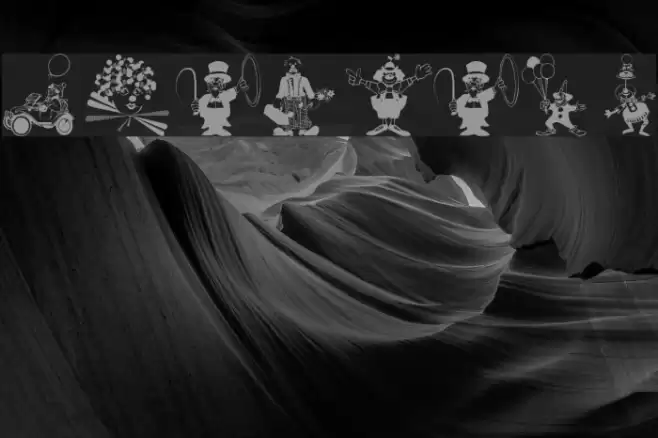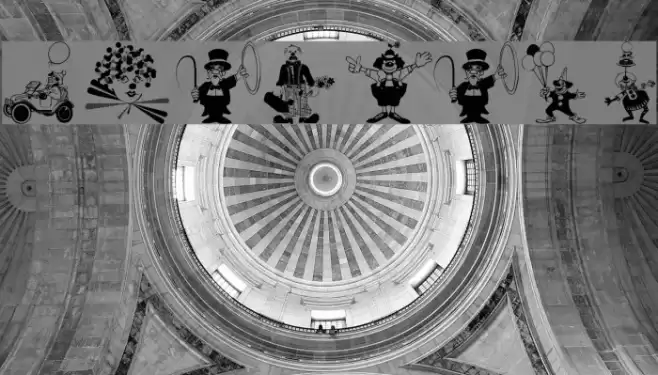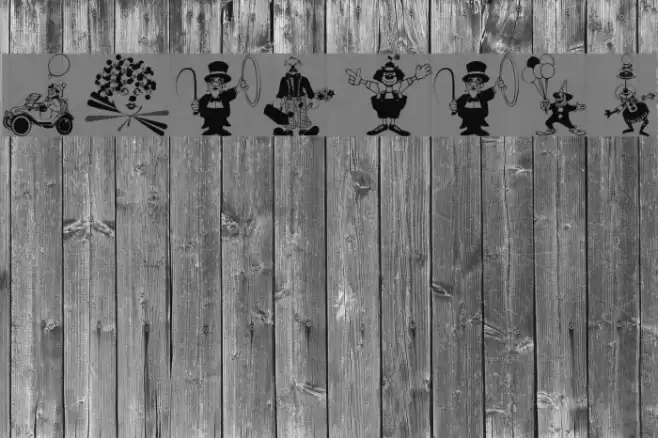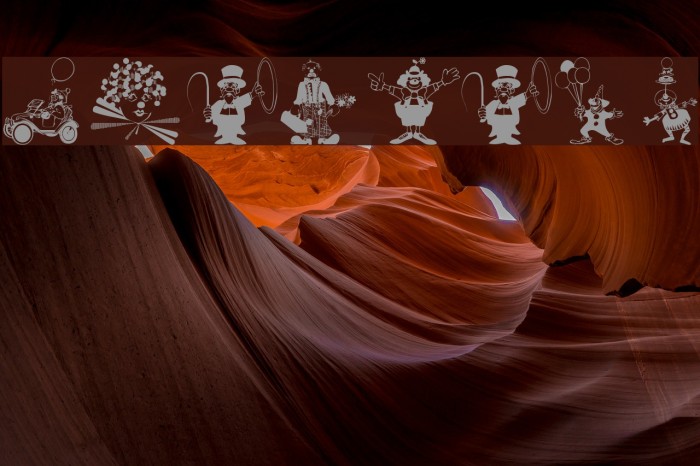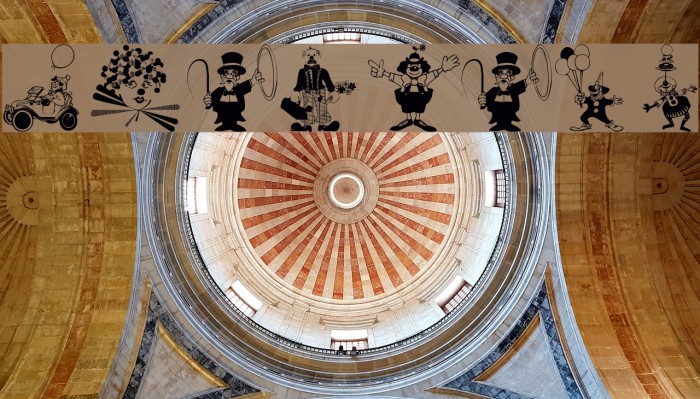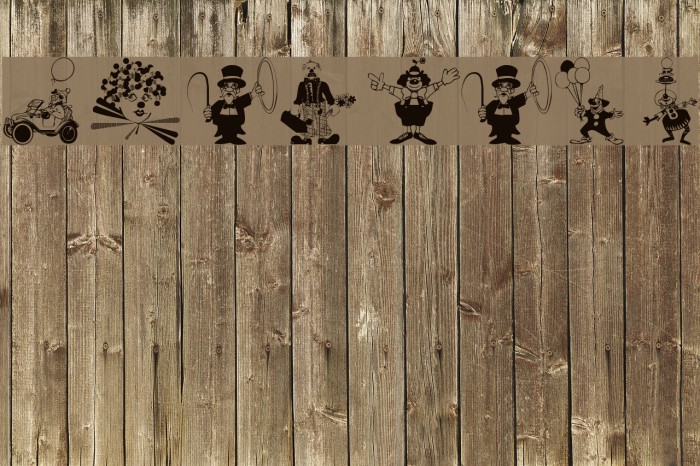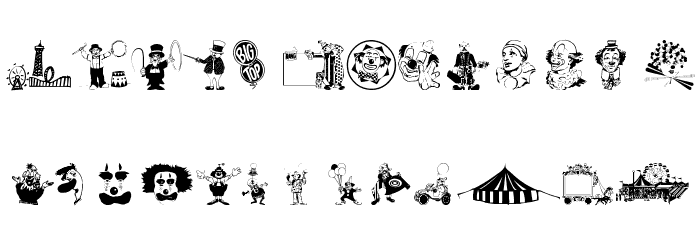
wmcircus1 Font
wmcircus1 Description
This is not a traditional font but rather a collection of circus-themed illustrations. Each character is represented by a unique circus-related image, such as clowns, animals, and performers. The style is whimsical and playful, capturing the essence of a vintage circus atmosphere. The images are detailed and varied, providing a rich visual experience that evokes nostalgia and entertainment. The illustrations are black and white, adding a classic touch to the overall design.
A whimsical collection of circus-themed illustrations in place of traditional characters from Uncategorized fonts.
- Proposed Projects: Ideal for creating circus-themed posters, party invitations, or educational materials about the history of circuses.
- Overall Style: Vintage
- Use Case: Logos, Decorative elements